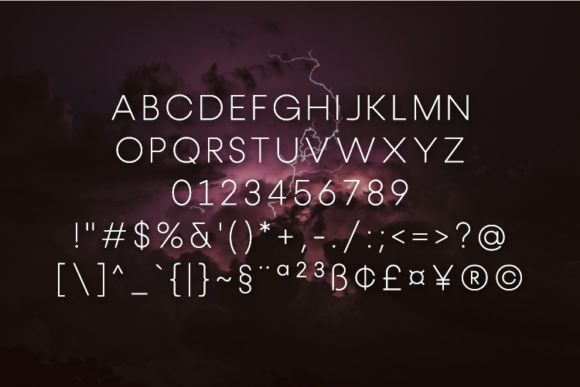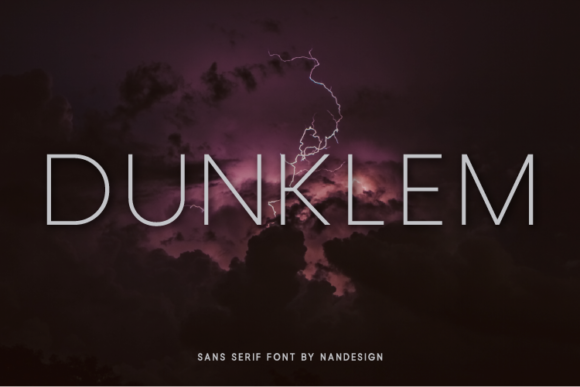
Introduction to Dunklem Font
Dunklem is a minimal, yet elegant sans serif font.
Suitable to a wide variety of designs due to its neat and simple style, Dunklem has the potential to become your favorite go-to font, no matter the occasion .
Key Features of Dunklem Font